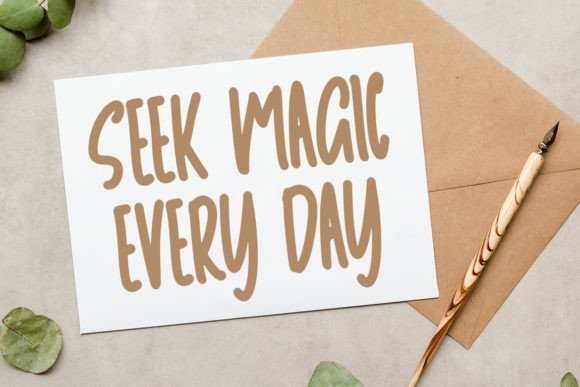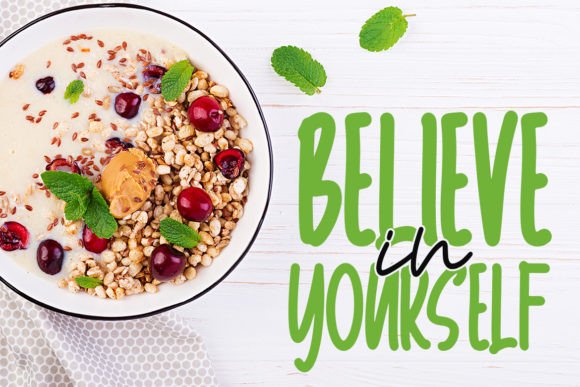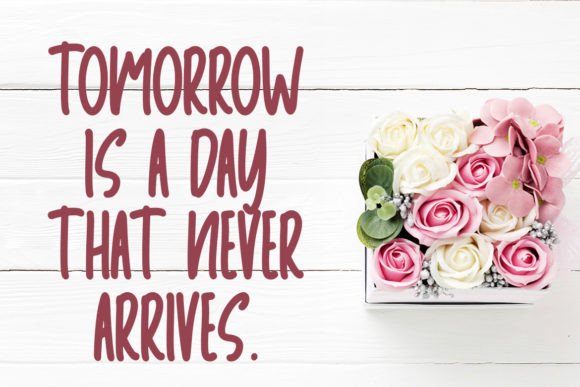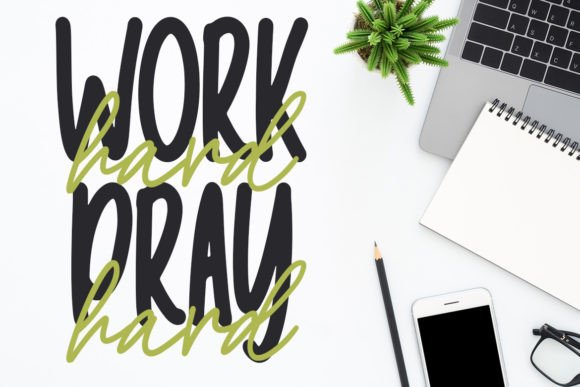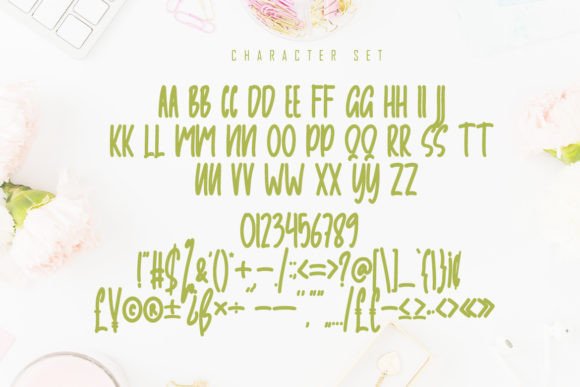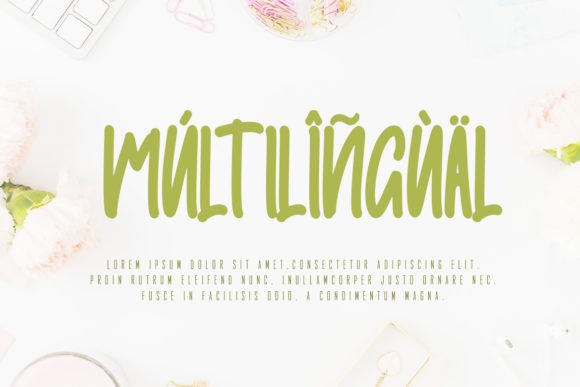
Introduction to Mikulsa Font
Imagine you’re working on a creative project and you’re struggling to find the perfect font to give it that extra oomph. You’ve browsed through countless options, but none seem to capture the essence of your vision. This is where the Mikulsa Font comes in – a game-changing, high-quality design resource that’s sure to elevate your work to the next level.
As a designer, you know how crucial it is to have access to a diverse range of fonts to bring your ideas to life. And with the Mikulsa Font, you’ll be able to add a touch of sophistication and urban character to your designs. Whether you’re working on a logo, headline, or any other creative project, this font is sure to make a statement.
Key Features of Mikulsa Font
- High-quality design for creative projects and graphic design: Mikulsa Font is a well-designed font that can elevate any design project.
- Unique characteristics: Mikulsa Font features a unique blend of modern and vintage elements, making it an excellent choice for designers looking for something different.
- Perfect design resource: This font is an excellent addition to any designer’s toolkit, providing a versatile and stylish option for creative projects.
Honest Review: Mikulsa Font
I recently had the chance to work with the Mikulsa Font, and I must say it’s been a delightful experience. The high quality of this font is evident in its smooth lines and sophisticated design, making it a great addition to any creative project.
One of the standout features of the Mikulsa Font is its transparent background, which allows for seamless integration with various design elements. This flexibility makes it an excellent design resource for designers of all levels.
- Only available in a limited range of weights
- No extensive character set (e.g., no Cyrillic or Greek alphabet support)
⚠️ While the Mikulsa Font is a great addition to any design arsenal, its limitations should be carefully considered before using it for larger projects.
Tips for Getting the Most Out of Mikulsa Font
For the best results, use Mikulsa Font in conjunction with a high-contrast background to ensure readability. Experiment with different font sizes and styles to achieve the desired effect.
Mikulsa Font is perfect for use in logos, social media graphics, and other creative projects where a unique and eye-catching font is desired. The font’s transparent background makes it easy to layer with other design elements.
Alternatives to Mikulsa Font
The Great Vibes Font is a beautiful, high-quality script font that features a transparent background, making it perfect for creative projects that require a touch of elegance. It’s free to download and can be used for personal or commercial use. Great Vibes Font is ideal for wedding invitations, branding materials, or any other design that needs a stylish and sophisticated look.
Compared to Mikulsa Font, Great Vibes Font has a more refined and polished feel, making it a great choice for high-end design projects. While Mikulsa Font has a more playful and casual vibe, Great Vibes Font is better suited for more formal and professional designs.